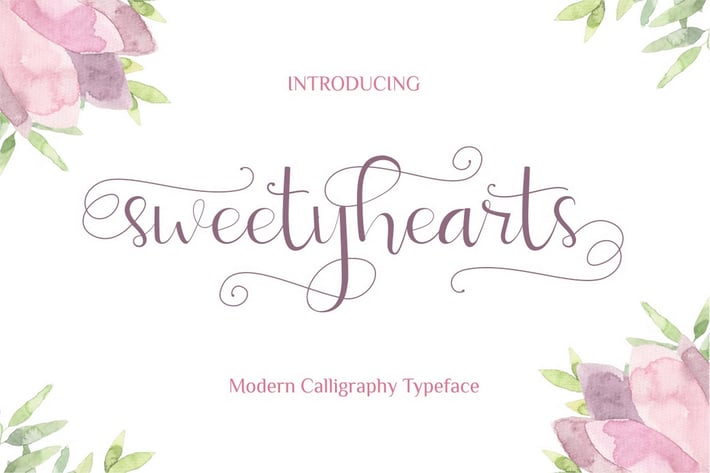
Sweetyhearts - Modern Calligraphy Font
Ahnaf-Studio
sweetyhearts
sweetyhearts is a modern calligraphy typeface. so girly and feminime. include lot of alternate. It is perfect for branding, letterhead, wedding invitations and cards.